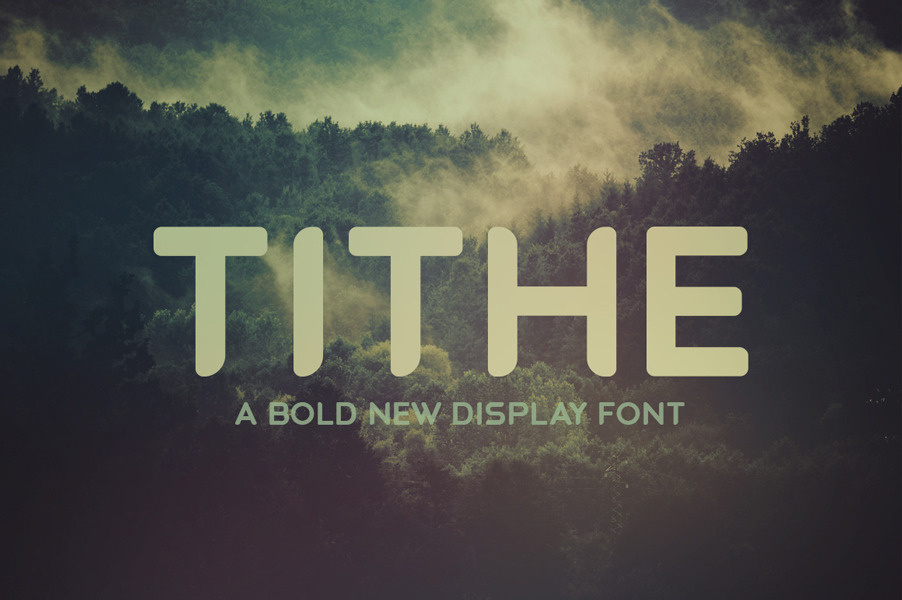
Tithe - A Bold New Display Font
Tithe is a BOLD new display font by Mike Jones of Construct Supply Co. We're bringing some of that smooth southern charm in this new font featuring unique rounded corners that give Tithe it's distinct characteristics.